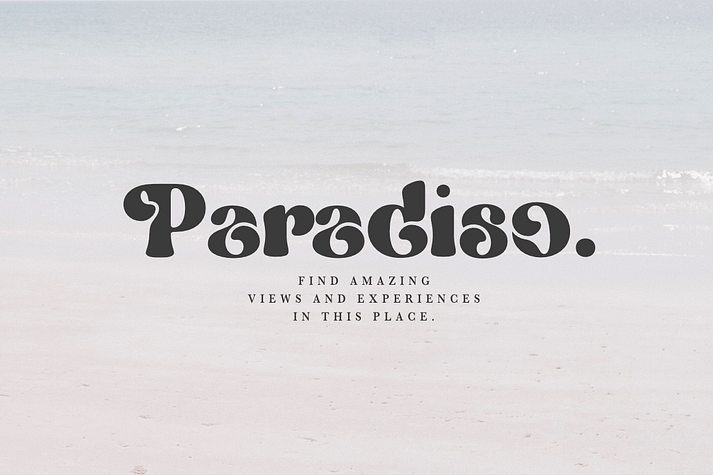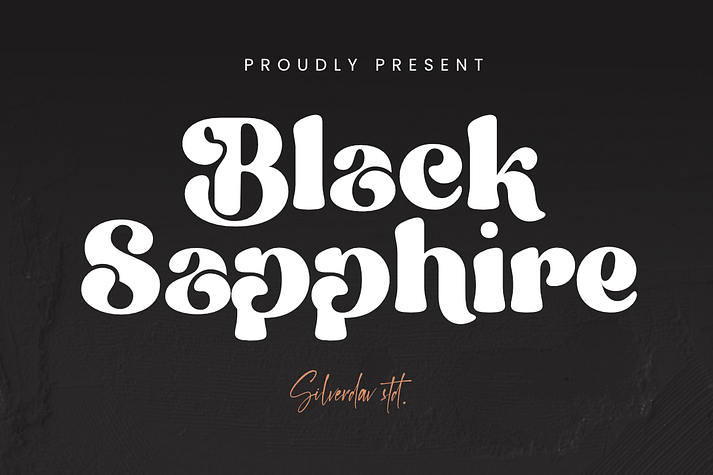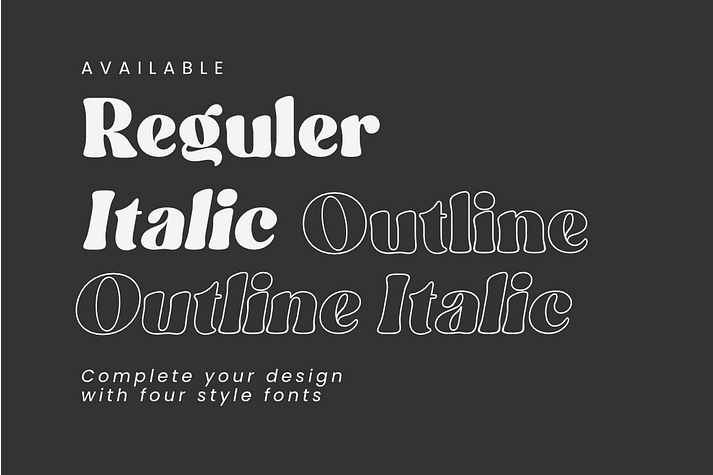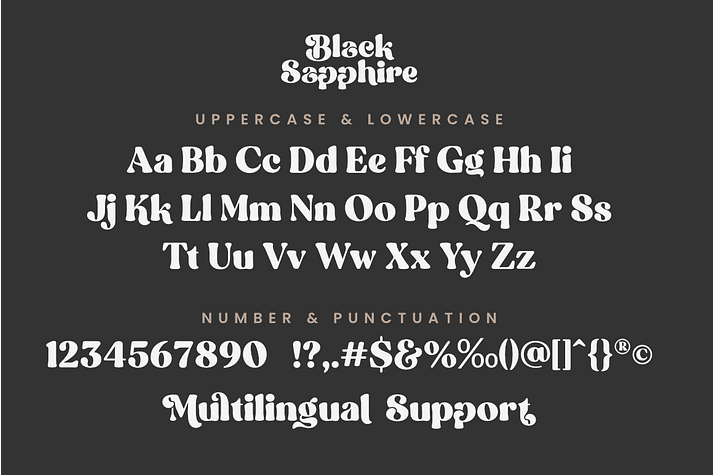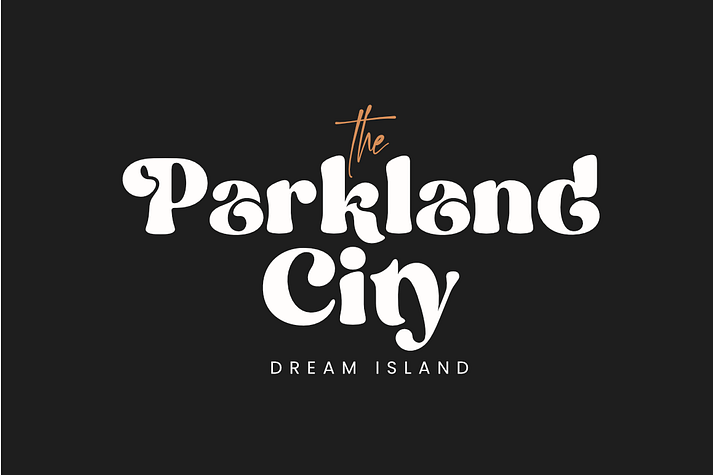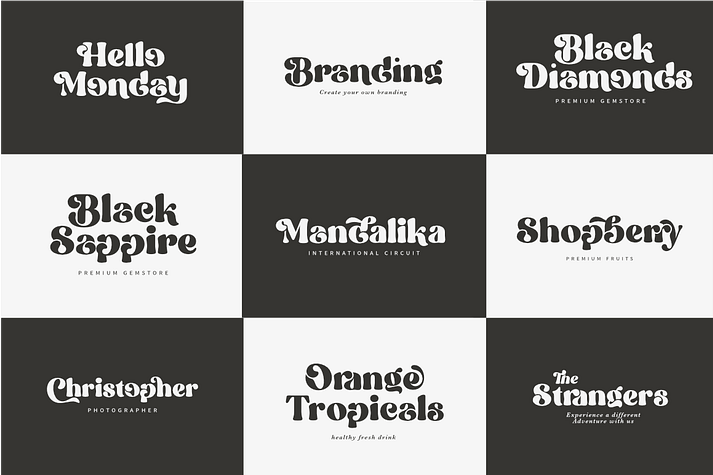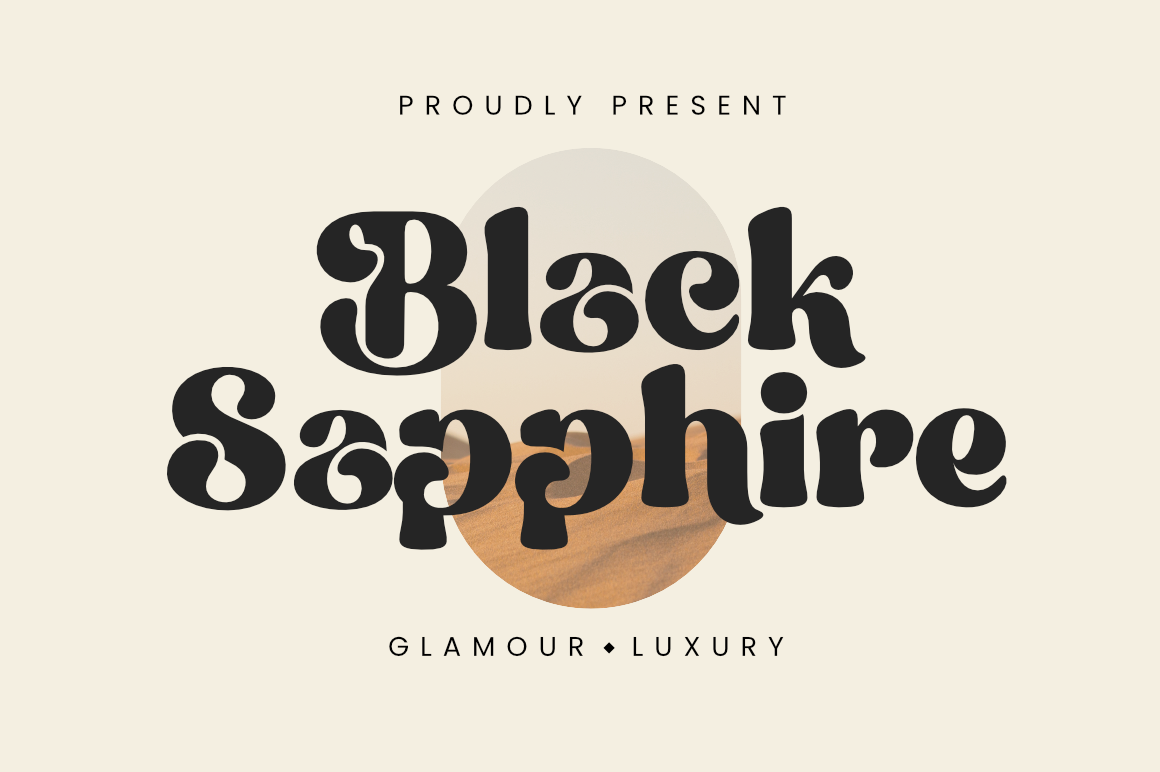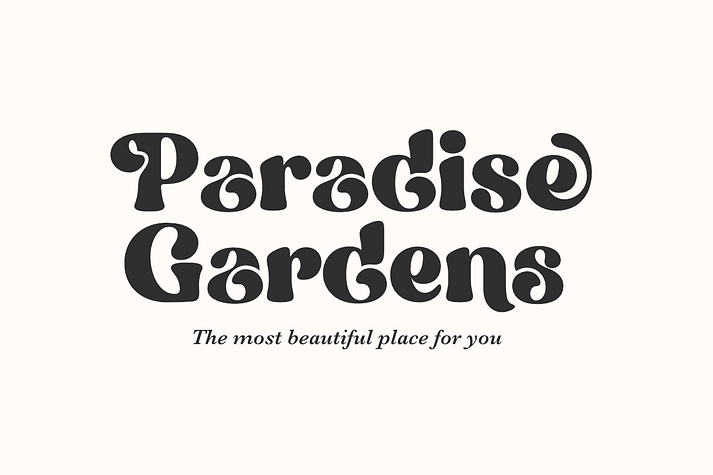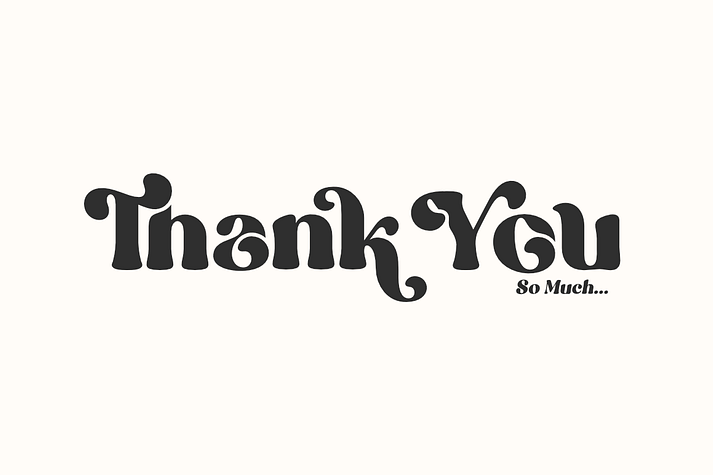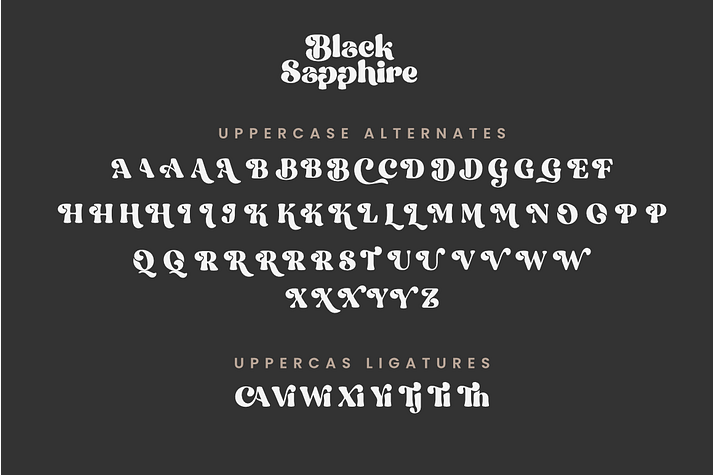
Sapphire
Sapphire is a retro and serif font family. This typeface has four styles and was published by Silverdav Studio.
Black Sapphire font is a modern font with a luxurious retro style, carefully crafted to produce the best product, there are 4 styles that you can use and mix to produce a unique, luxurious, and elegant design.
Black Sapphire consists of, Regular, Italic, Outline & Outline italic, combine and create your own design, plus a lot of uppercase and lowercase alternate letters will add to the uniqueness and luxury of the design you create.
Black Sapphire is perfect for Branding, Logo, Magazine, T-Shirt, Mockup, Quotes, Poster, and more, try it yourself and create amazing designs with Black Sapphire font.
• 185 Uppercase & Lowercase Alternates